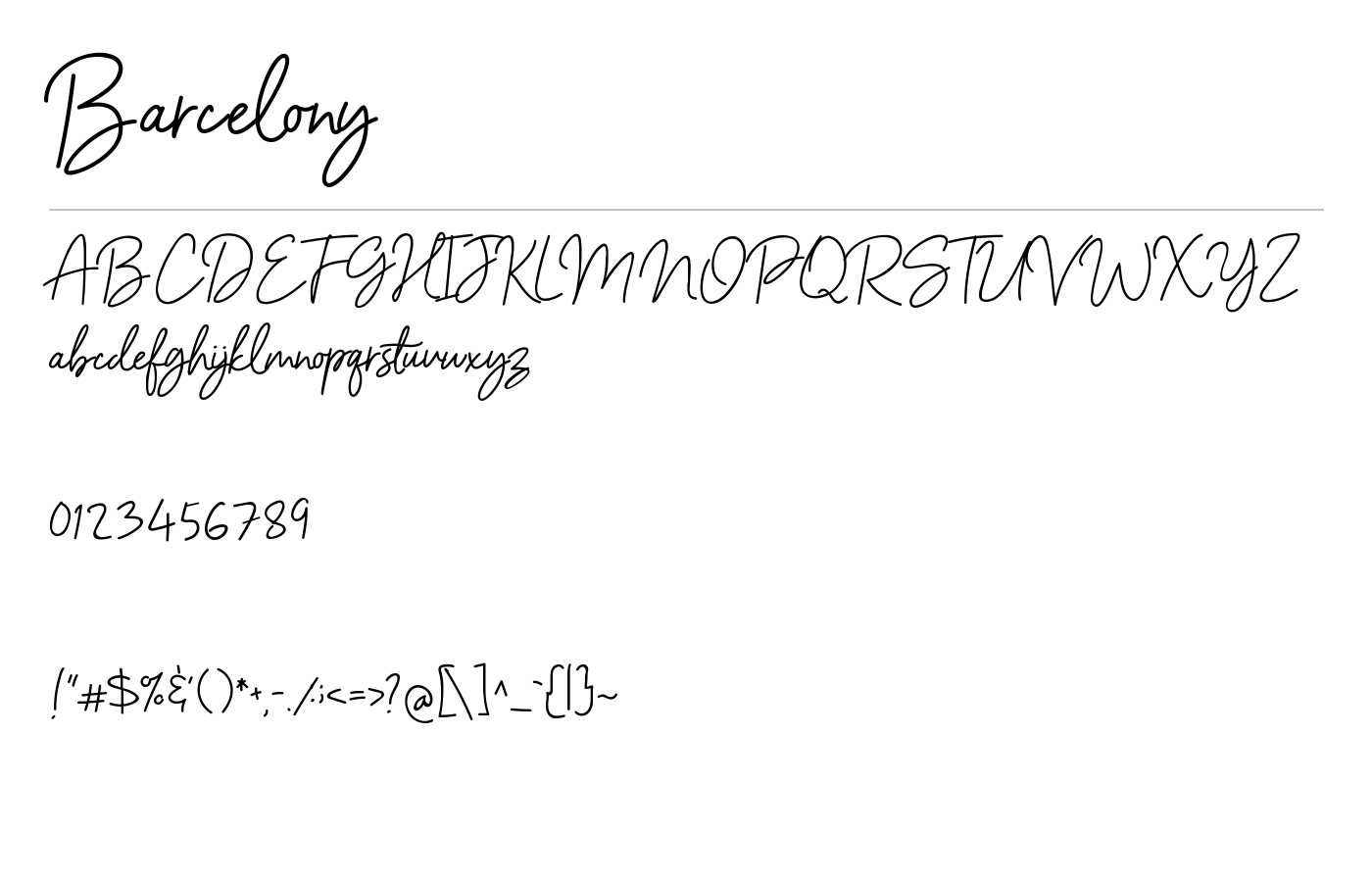
Barcelony is a delicate, elegant script font with a natural, handwritten feel that combines slender strokes and smooth curves. Its light weight and airy, flowing style make it ideal for branding, invitations, and creative projects where a personal, stylish touch is desired. This font works especially well in fashion, lifestyle, and feminine designs, conveying a modern yet approachable personality.
Barcelony Font
About Barcelony Font